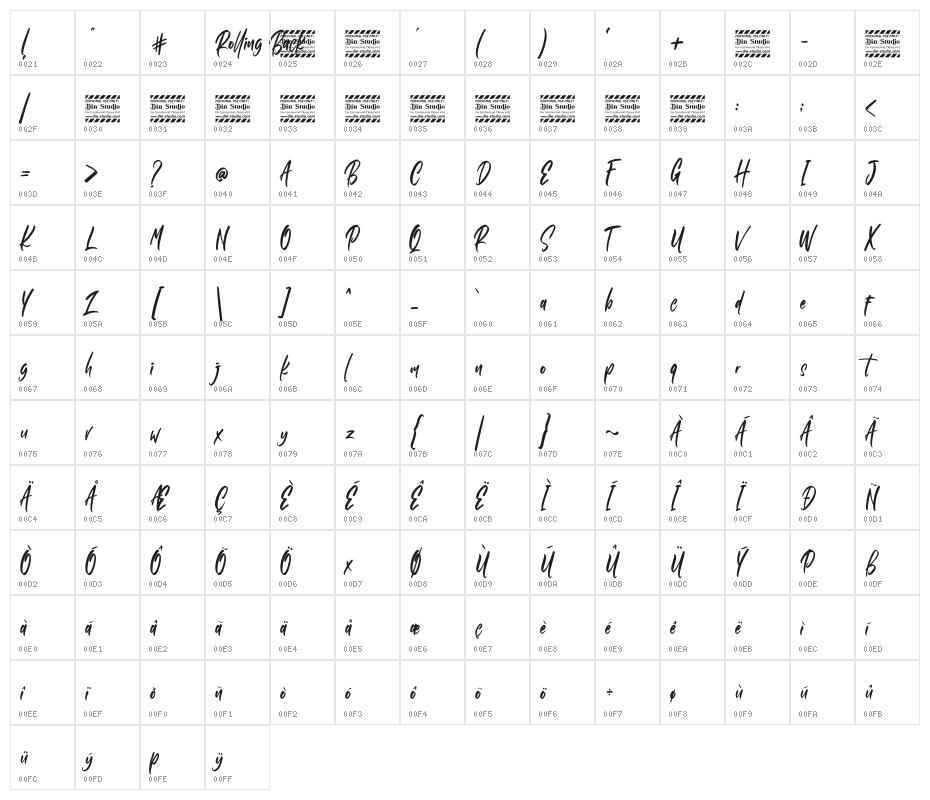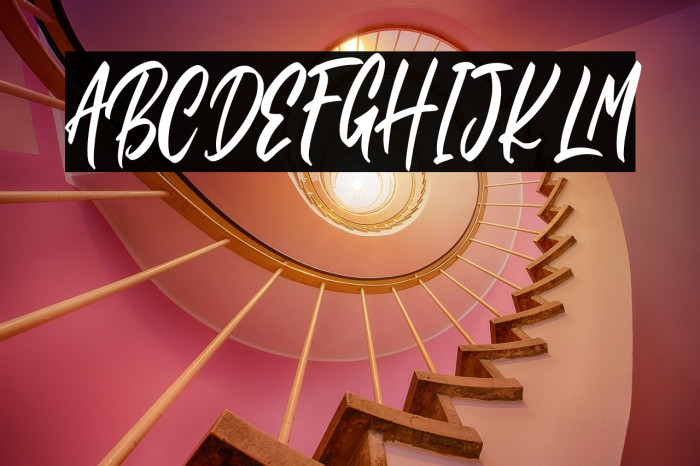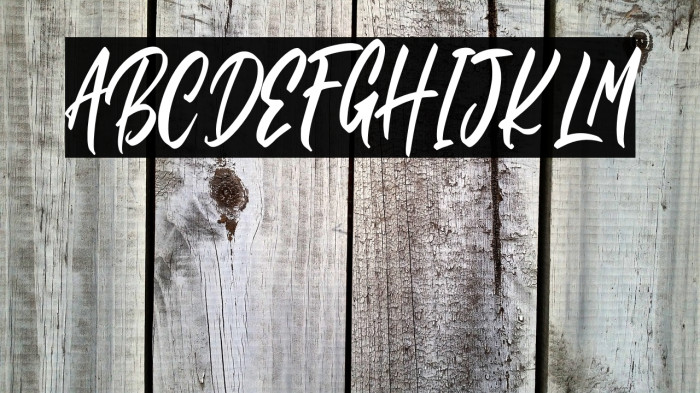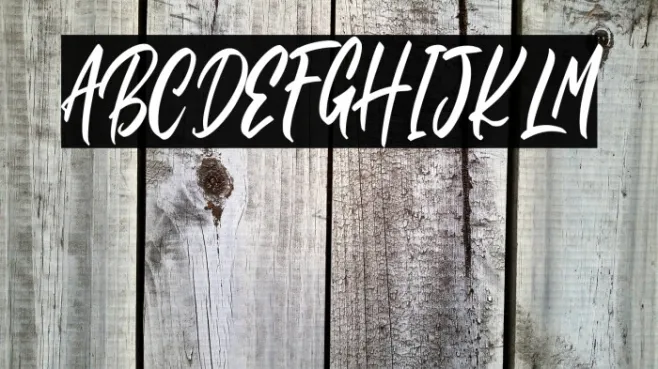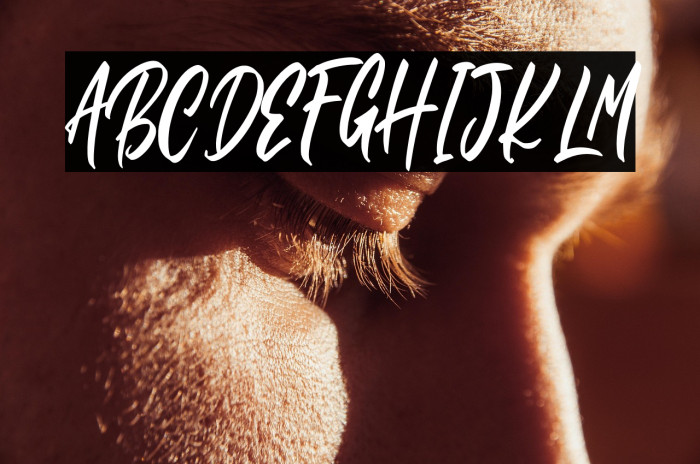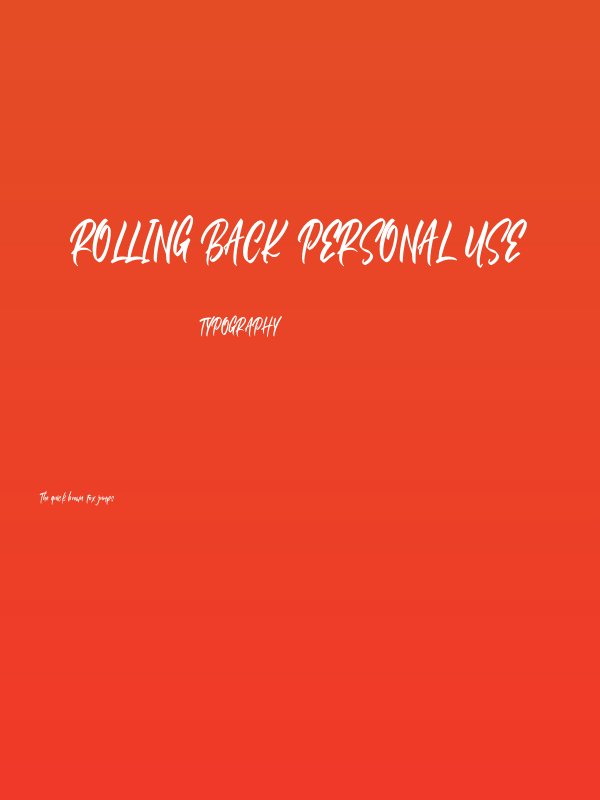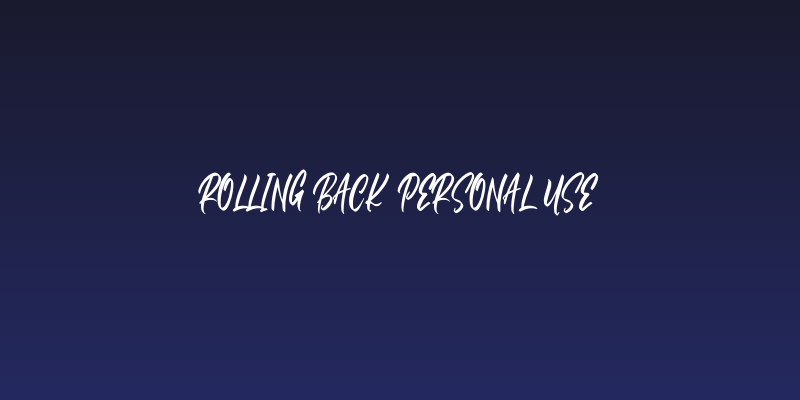
Rolling Back Personal Use Font
Rolling Back Personal Use Description
This font features a dynamic and energetic handwritten style, characterized by its fluid and expressive strokes. The uppercase letters are bold and slightly slanted, giving a sense of movement and spontaneity. The lowercase letters maintain a consistent flow, with some characters featuring unique loops and curves that add to the overall artistic feel. The numbers and special characters are crafted with the same attention to detail, ensuring a cohesive look across all elements. This font is ideal for projects that require a personal touch or a creative flair.
| Proposed Projects | Ideal for branding, invitations, posters, and social media graphics where a personal and artistic touch is desired. |